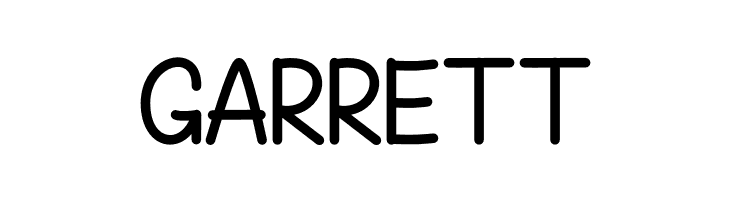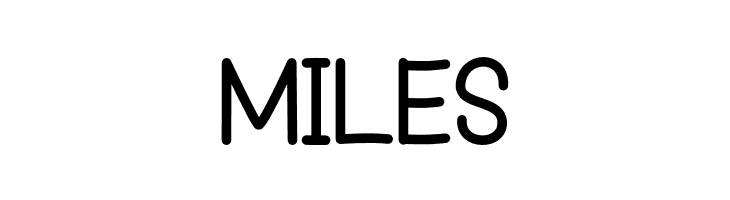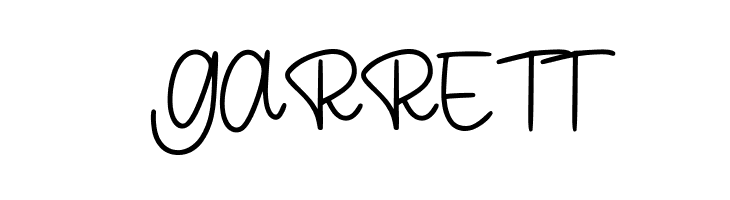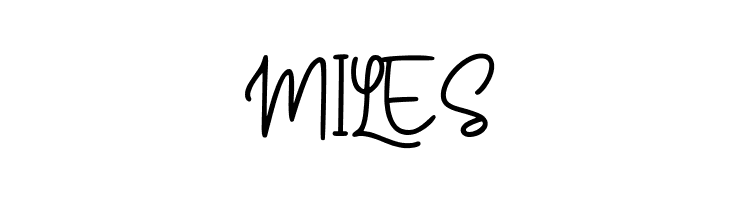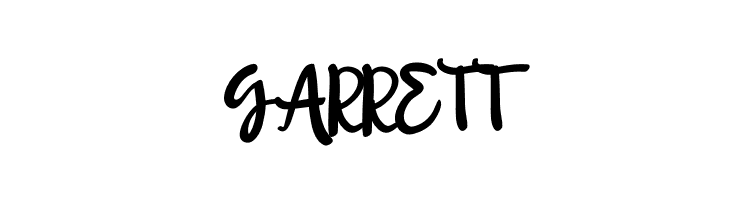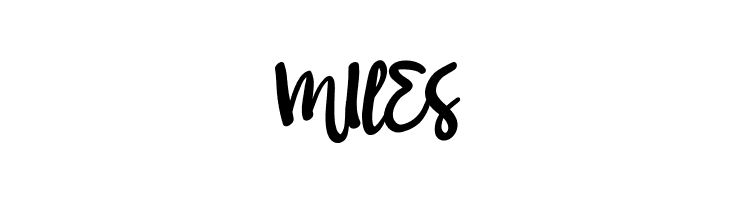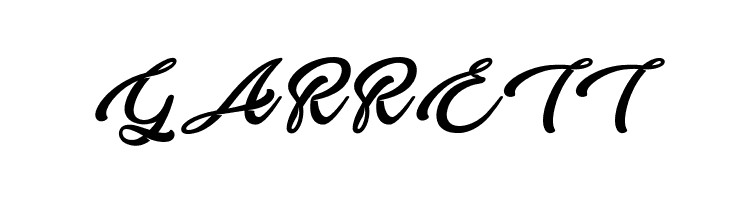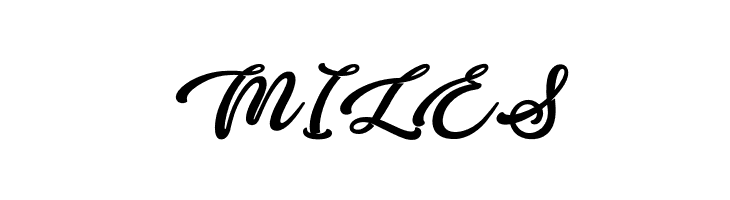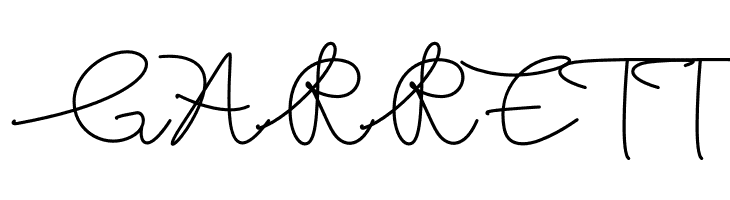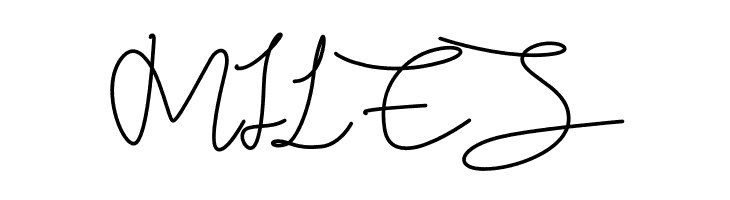
A bold and playful script font with decorative flourishes and smooth curves.
A playful and whimsical font with elaborate curls and loops.
A bold, playful font with rounded, hand-drawn letterforms.
A bold, playful script font with flowing, cursive letterforms.
A dynamic handwritten font with fluid, interconnected strokes.
A playful, hand-drawn font with rounded edges and a whimsical style.
A playful, rounded handwritten font with smooth curves and a friendly appearance.
A bold, geometric font with rounded edges and a modern style.
A playful, handwritten font with smooth, flowing lines and rounded edges.
A bold, playful handwritten font with thick, uneven strokes and a lively appearance.
A flowing, cursive script font with elegant loops and swashes.
An elegant script font with flowing, cursive letterforms and graceful curves.
An elegant script font with flowing, cursive strokes and intricate loops.
A playful and flowing script font with smooth, cursive strokes and elegant loops.
A decorative butterfly-themed dingbat font with varied wing designs.
A dynamic brush script font with expressive, flowing strokes.
A bold, decorative font with playful, rounded characters resembling abstract shapes.
A whimsical and playful script font with a bold, hand-drawn style.
An elegant, flowing script font with a handwritten feel, perfect for sophisticated projects.
A whimsical script font with playful loops and heart motifs.
A flowing, cursive font with elegant, interconnected letters.
A bold, geometric font with sharp angles and a modern, edgy aesthetic.
A playful and elegant script font with fluid, cursive strokes.
A flowing, cursive font with elegant and playful characteristics.
A playful, rounded font with smooth curves and a friendly appearance.
A decorative collection of butterfly and insect-themed dingbats.
A playful, cursive-like font with bold, flowing strokes and a hand-drawn appearance.
A playful and whimsical script font with fluid, expressive letterforms.
A whimsical handwritten font with a playful and artistic style.
A whimsical, handwritten-style font with playful, irregular characters.
A bold, playful script font with a hand-drawn, energetic style.
A bold, brush-style script font with a playful and artistic flair.
A playful, casual handwritten font with irregular strokes and an organic flow.